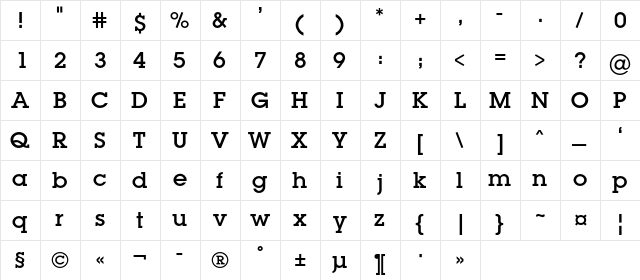
Luga Regular
Design Context for Luga Typeface
Luga offers clean, dependable letterforms without strong stylistic allegiance, making it a practical choice for designers who need flexibility.
Pro Tip: Use Luga in both headline and body roles to test its range before committing to a single application.